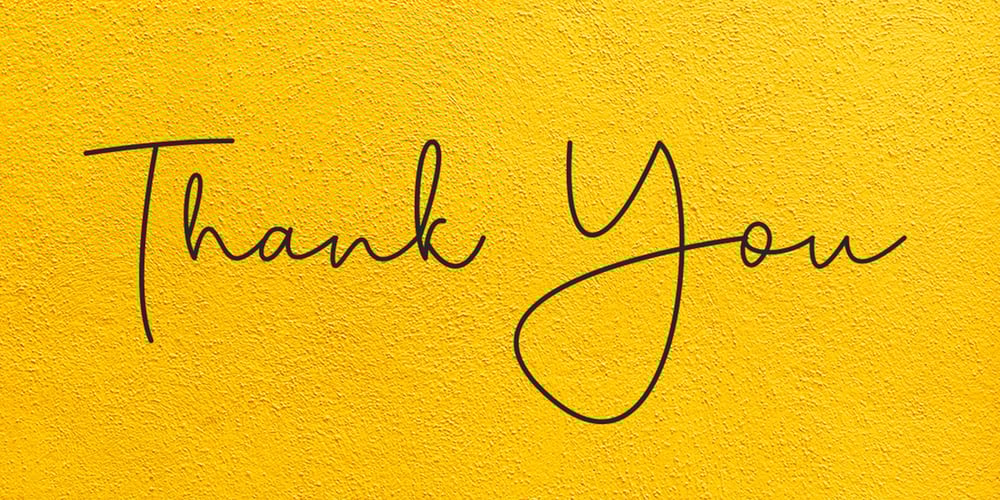
Tallitha
Tallitha font
Tallitha Font Family was designed by Agung Rohmat and published by alphArt. Tallitha contains 1 styles and family package options. Tallitha, a stylish handwritten font that looks cute, elegant, stylish and is perfect for any awesome projects that need lettering taste. Tallitha could be perfect for watermark, social media posts, advertisements, logos & branding, invitation, product designs, label, stationery, wedding designs, product packaging, special events and more. Tallitha also includes a full set of uppercase and lowercase letters, multilingual symbols, numerals, punctuation. The font has a smooth wet ink texture, so would be perfect for all types of printing techniques and you can do embroidery, laser cut, gold foil etc. Features : ligature alternate multi lingual I hope you enjoy this font. If you have any questions please don’t hesitate to drop me a message 🙂